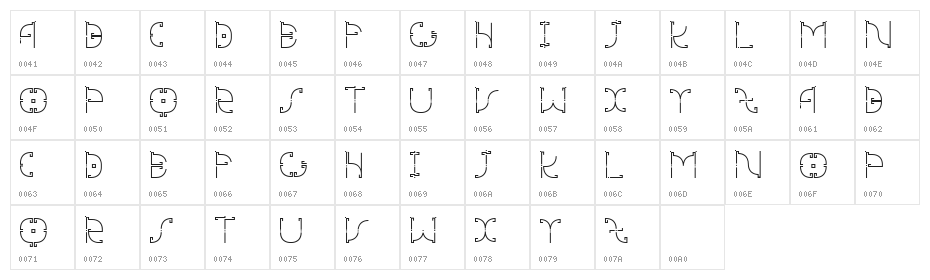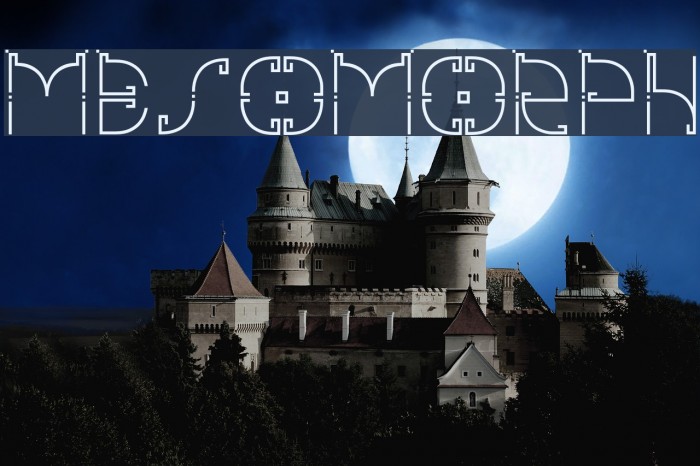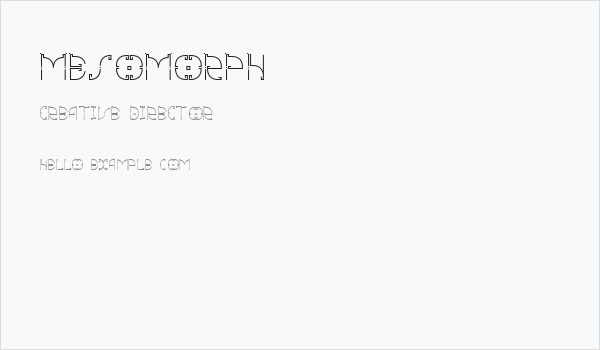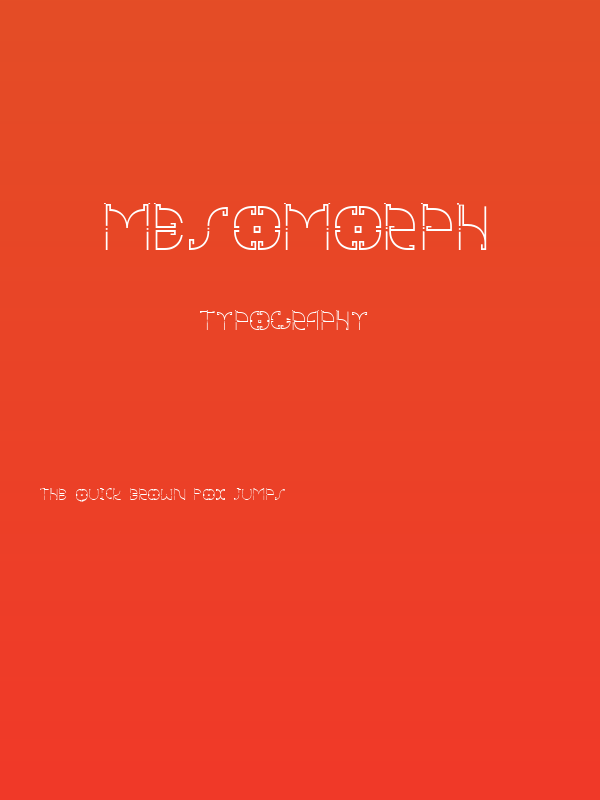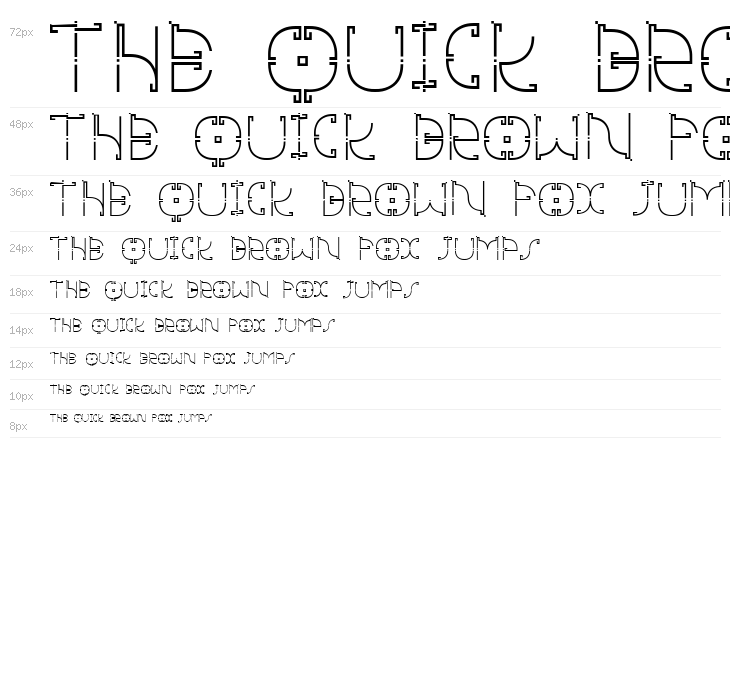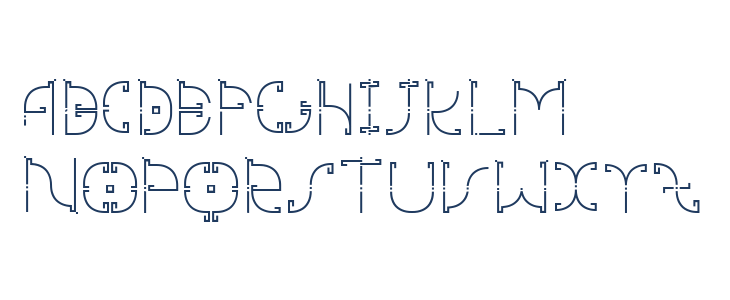
mesomorph Font
This font features a highly decorative and geometric design, characterized by its intricate line work and unique structural elements. Each letter is crafted with a combination of straight lines and curves, creating a futuristic and mechanical appearance. The font's design includes small, detailed cutouts and extensions that add complexity and visual interest. Its overall aesthetic is modern and avant-garde, making it suitable for projects that require a distinctive and artistic touch. The font maintains a consistent stroke width throughout, contributing to its uniform and cohesive look.
| Use Case | Logos, Headlines, Posters |
| Proposed Projects | Ideal for branding, posters, album covers, and any project seeking a modern, artistic flair. |